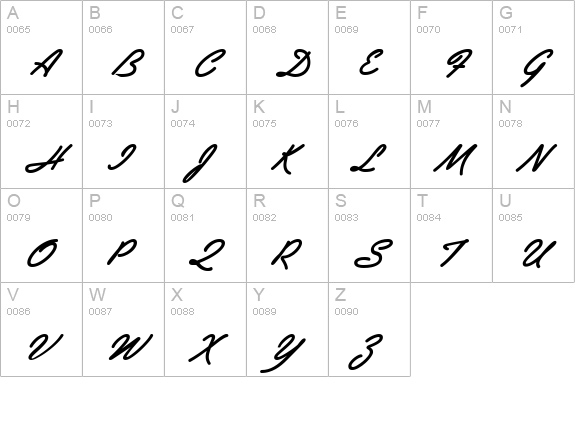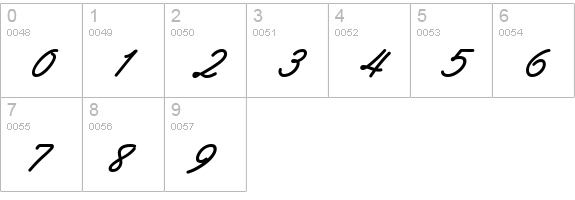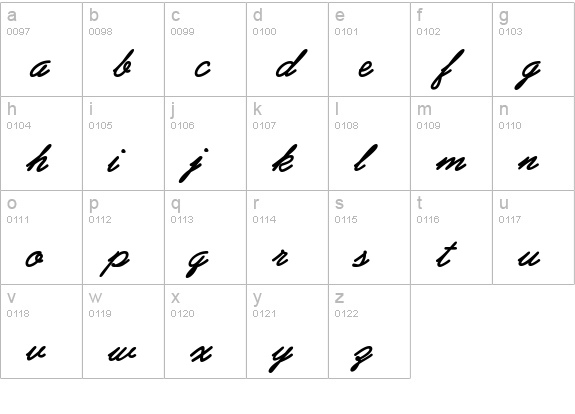
Abrazo Script SSi Bold Italic Font Details
Abrazo Script SSi Bold Italic is a strong, high-contrast, italic variant in the Abrazo typeface family \xE2\x80\x94 well suited to headlines, attention-grabbing titles, and strong calls-to-action.
Abrazo Script SSi Bold Italic font is a stunning and elegant typeface that exudes sophistication and charm. Its bold and italic design adds a touch of drama and flair to any project, making it perfect for luxury branding, invitations, and editorial designs. This font features fluid and graceful curves, creating a sense of movement and energy on the page. The intricate details and stylish flourishes give it a unique and timeless appeal that will make your designs stand out. Best of all, Abrazo Script SSi Bold Italic font is available for free download at FontsMarket.com. This means you can easily add this beautiful typeface to your collection without any cost. Don't miss out on this opportunity to elevate your designs with the beauty and elegance of Abrazo Script SSi Bold Italic font.